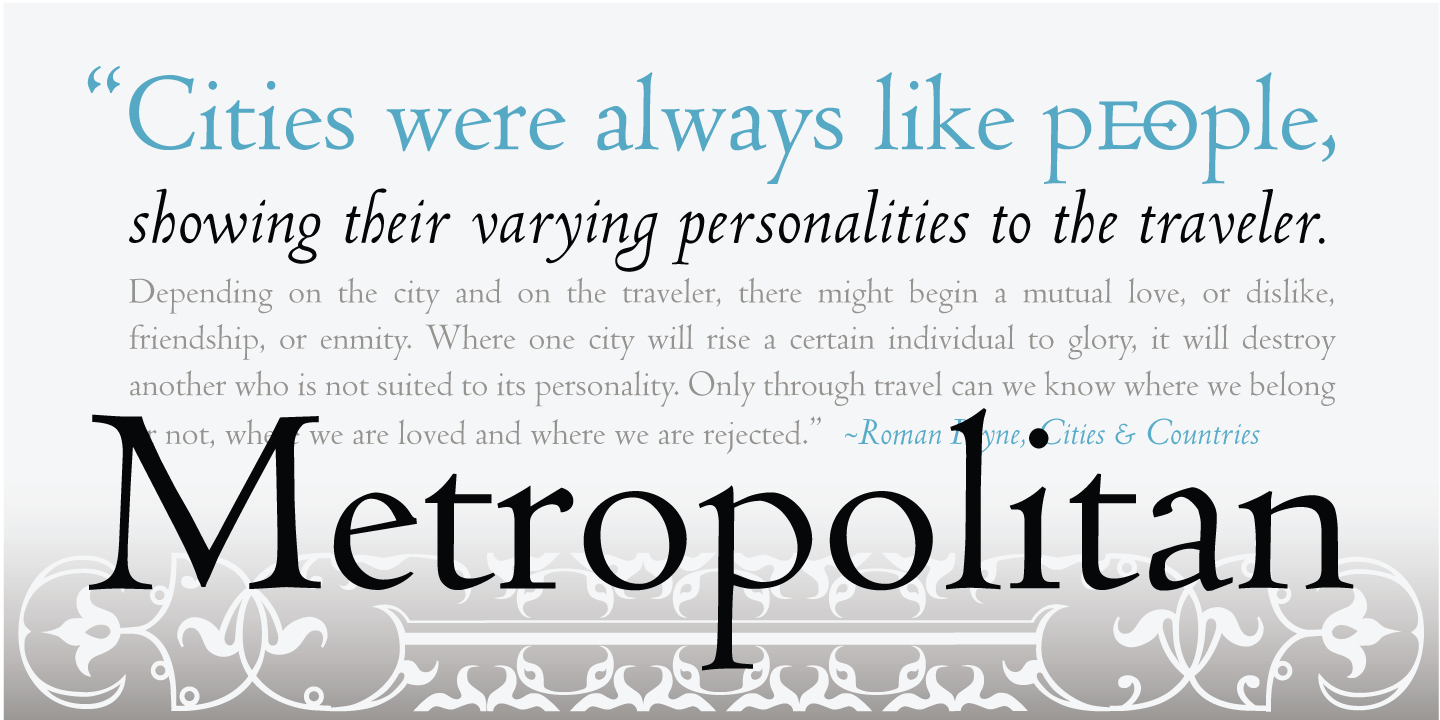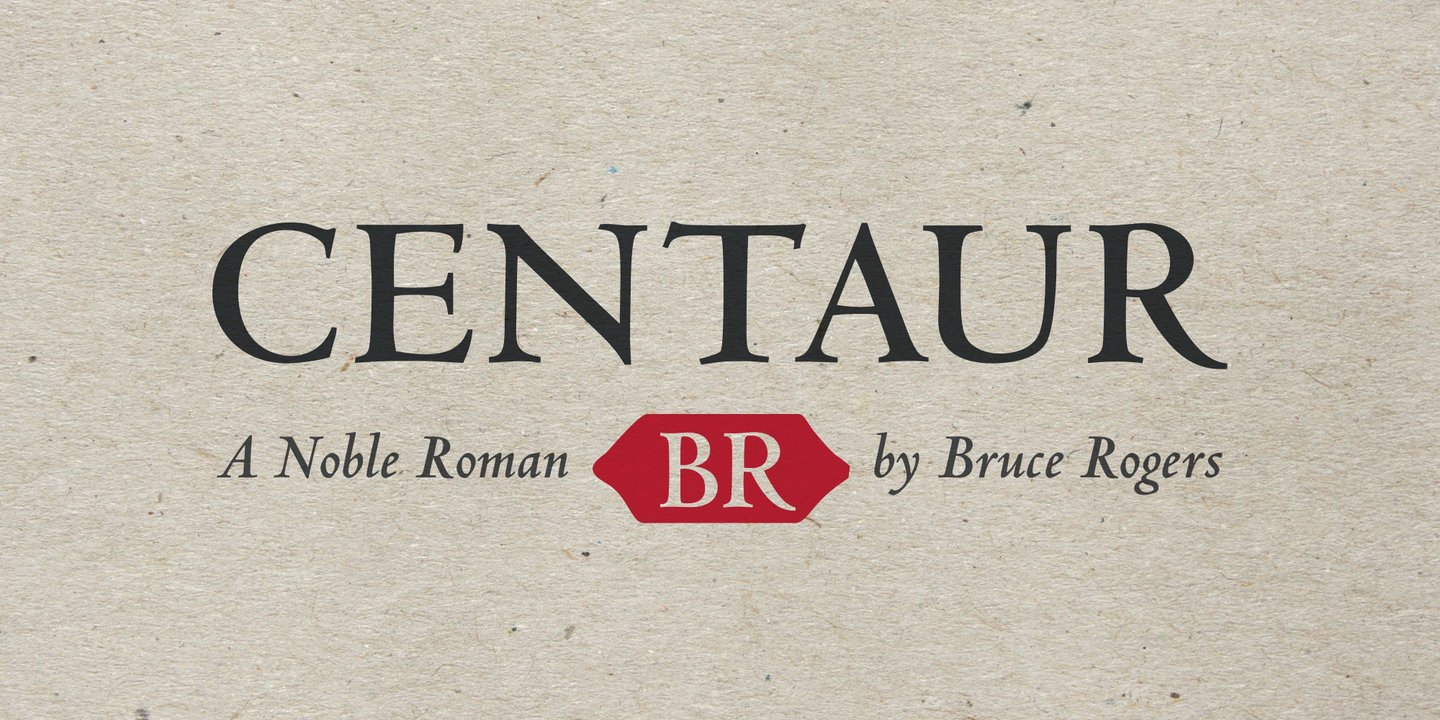
American printer, typographer and type designer Frederic Warde (born 1894 in Wells, Minnesota, USA, died 1939 in New York, USA) created the font . Bruce Rogers originally designed the exquisite, classical Centaur for the Metropolitan Museum in 1914. The forms are based on those of the famous Renaissance printer Nicolas Jenson. The italic, designed in 1925 by Frederic Warde, was originally called Arrighi. Warde modelled the italic forms on the Italika of Ludovico Vicentino, a 16th century typeface. The capitals are more freely formed. If they had been based on the Italika, they would have been vertical. The elegant and harmonic Centaur was produced for Monotype. This modern, American book typeface is good for both long texts and headlines.